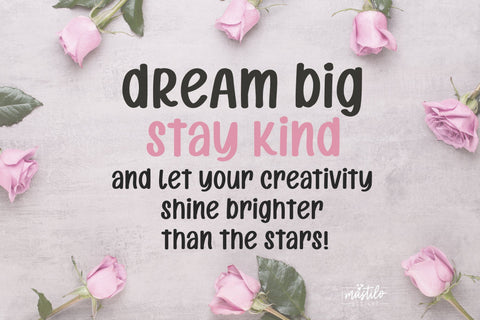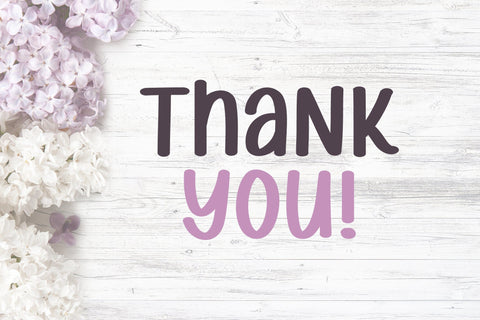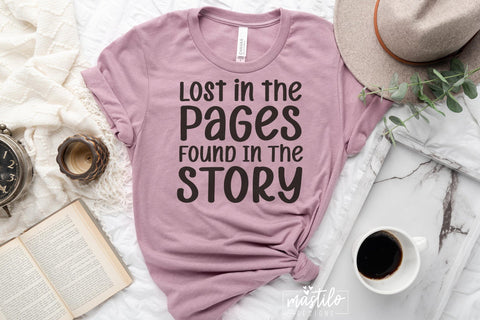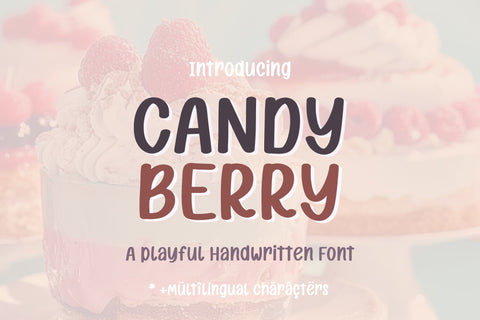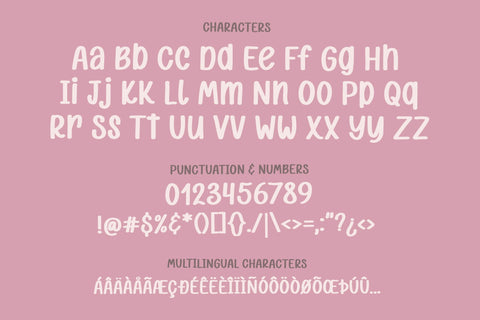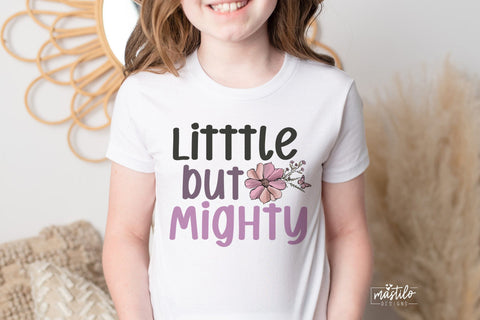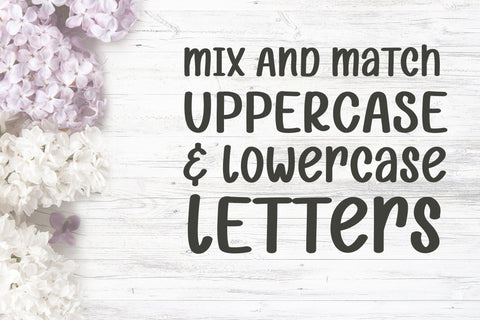
Mixed Notes Font, Candy Berry Hand-drawn Playful Font
Introducing Candy Berry, a hand drawn sans serif craft font. A versatile font, with possibilities for use for all your projects. With the possibilities to change the Uppercase strokes to different colors it makes a great craft font for all your projects.
CANDY BERRY includes:
~ full upper + lowercase characters
~ numbers + basic punctuation
~ Multilingual characters + support